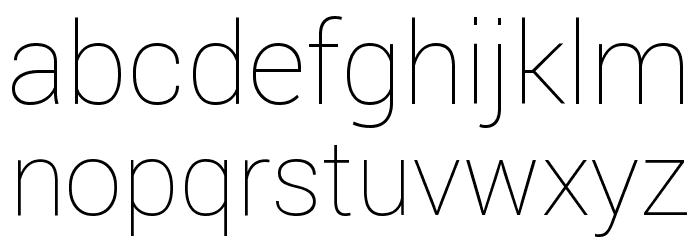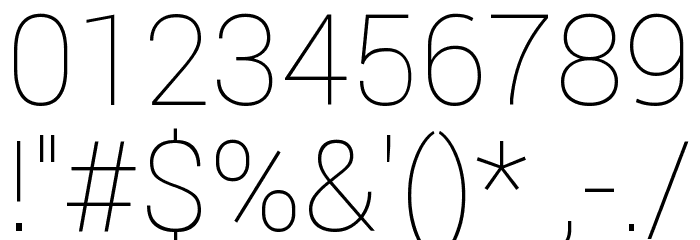
Franko Thin Font
This font features a sleek and minimalist design with clean lines and a modern aesthetic. The characters are uniformly thin, contributing to a light and airy appearance. The uppercase and lowercase letters maintain a consistent height and width, creating a harmonious look. The numerals are clear and easy to read, while the special characters are well-integrated into the overall style. This font's simplicity and elegance make it versatile for various design applications.
A sleek, minimalist font with clean lines and a modern aesthetic.
- Proposed Projects: Ideal for modern branding, minimalist posters, clean web design, and contemporary editorial layouts.